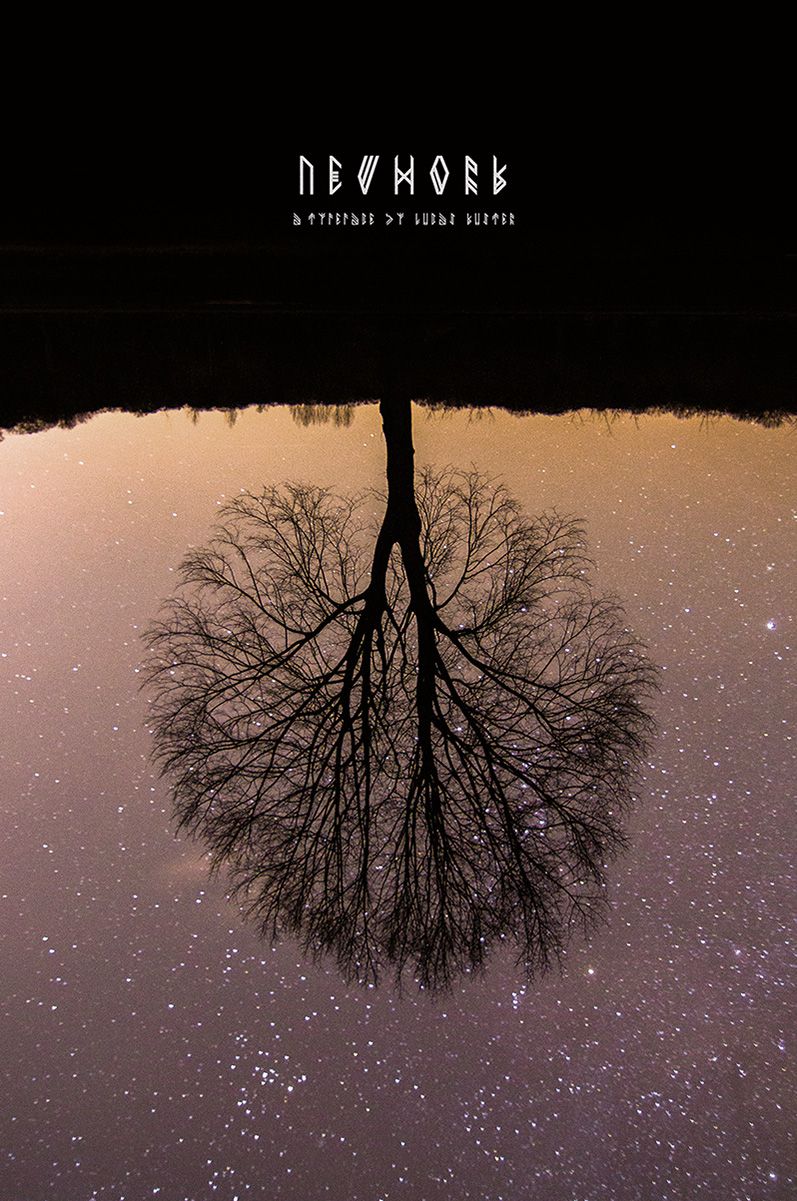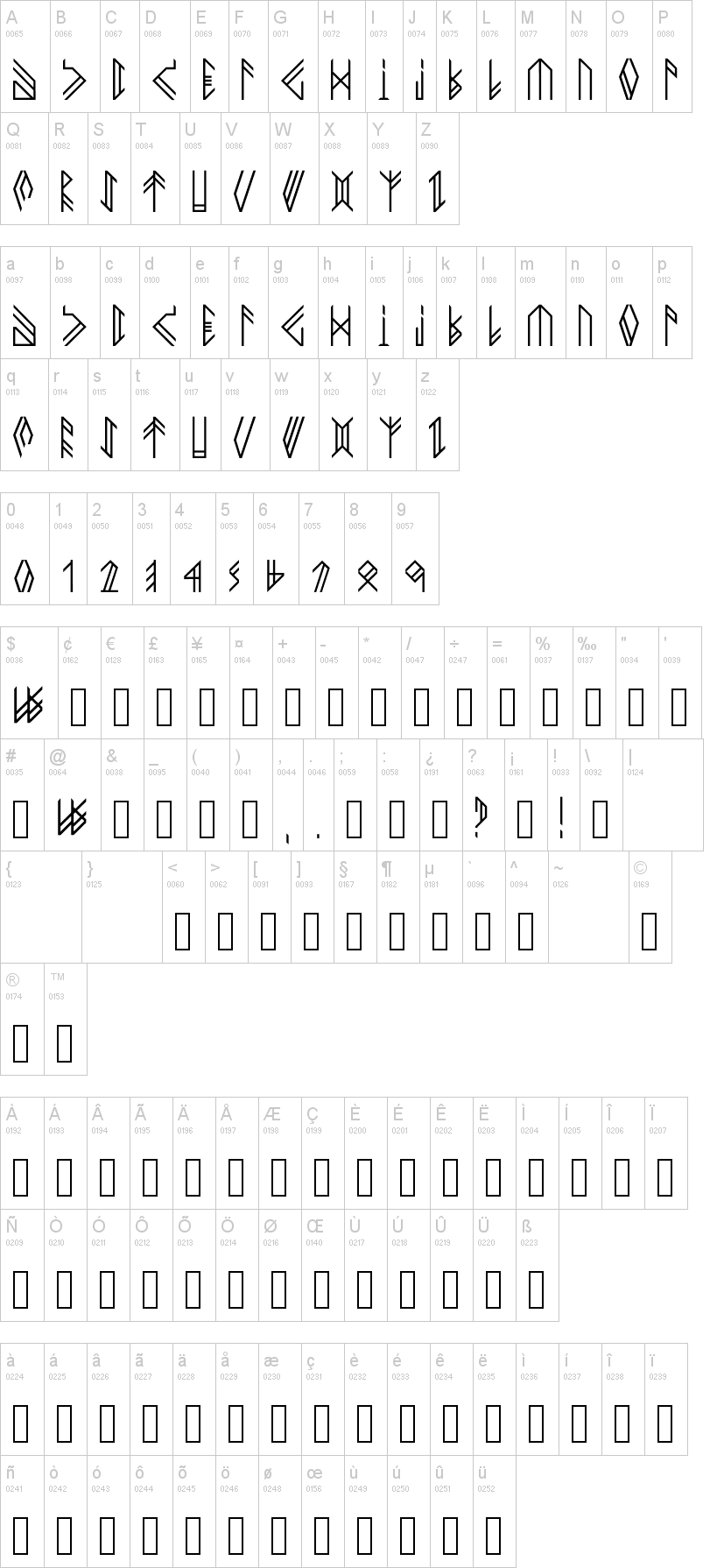
Шрифт Newhork
"A font inspired by the hard and linear chracteristics of a typeface from the time of the Vikings.
Adapting an almost forgotten Scandinavian runic typeface to the present design requirements with an
intense reference to the Finnish nature and the original Danish runes the Younger Futhark.
This project covers classic print designs as well as an audiovisual presentation of the novel
font which forms a balanced mix between experimental and conceptual design."